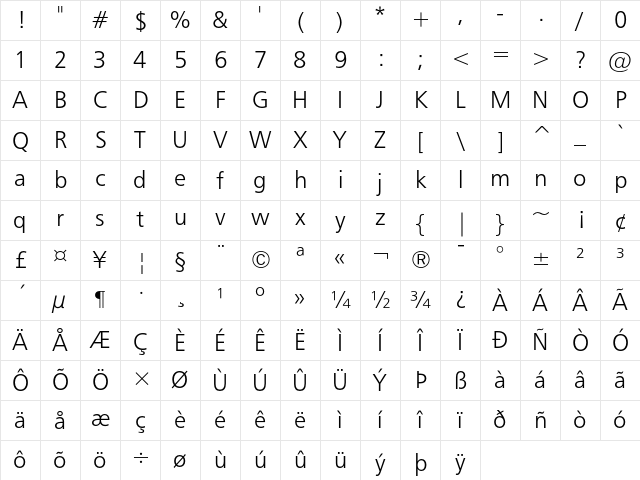
Humanist 777 Light
Humanist 777 Family
Humanist 777 Light
Design Context for Humanist 777
Humanist 777 is a composed and adaptable typeface that performs quietly and consistently across a wide range of design contexts. Its slender proportions lend an understated elegance to any composition.